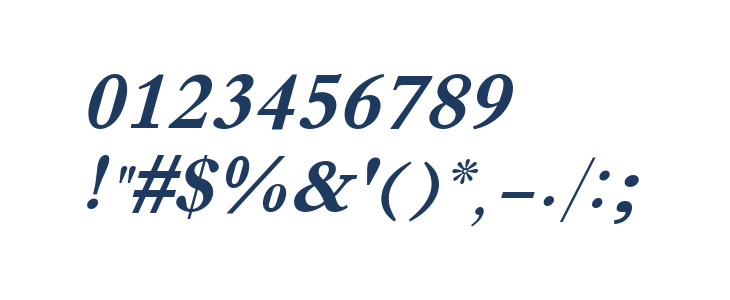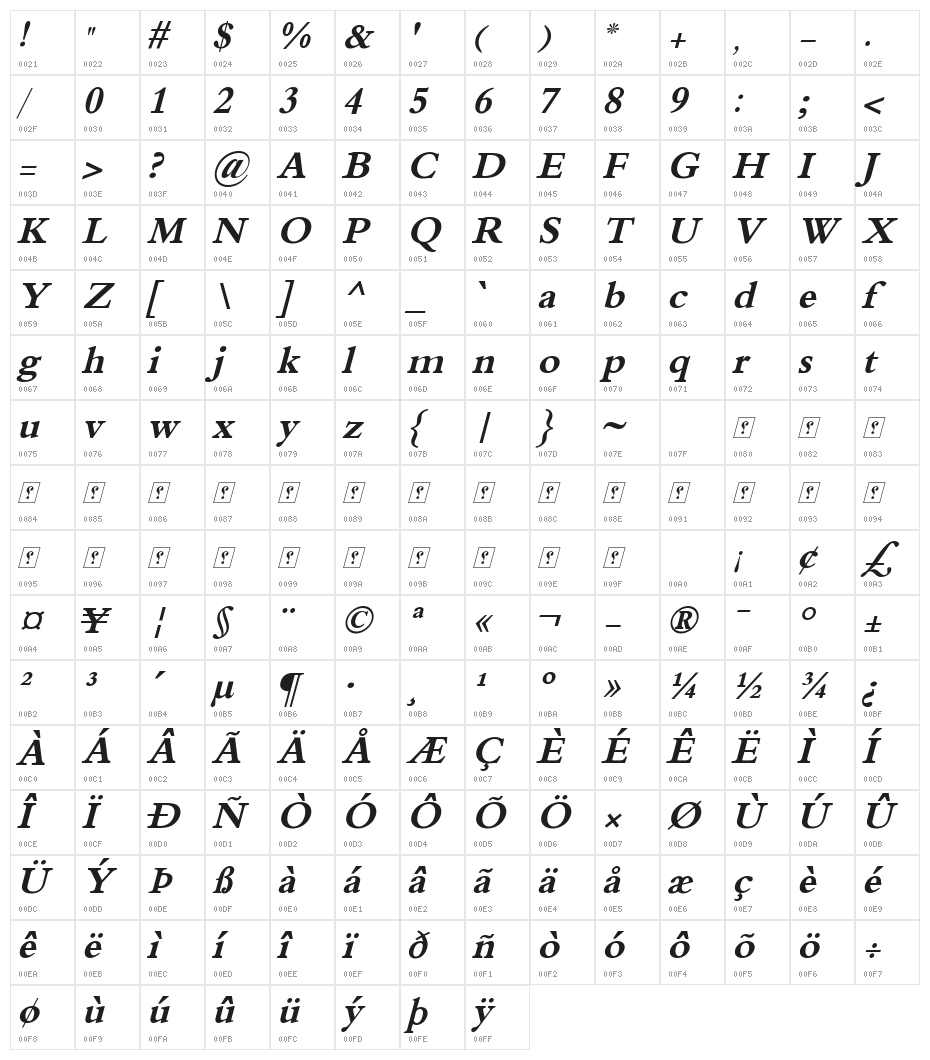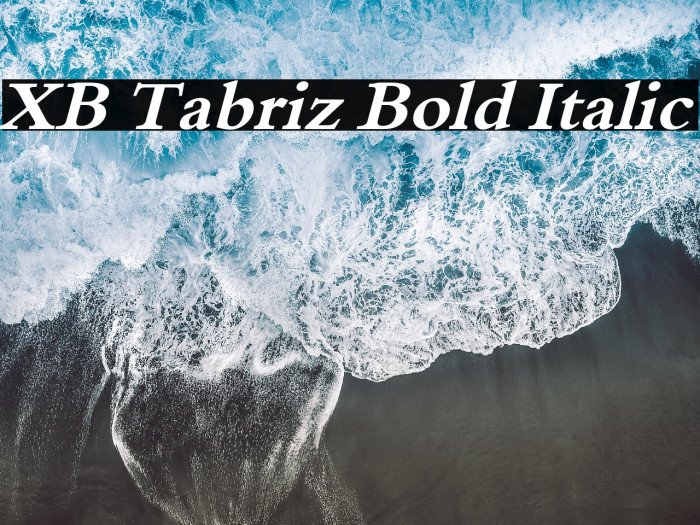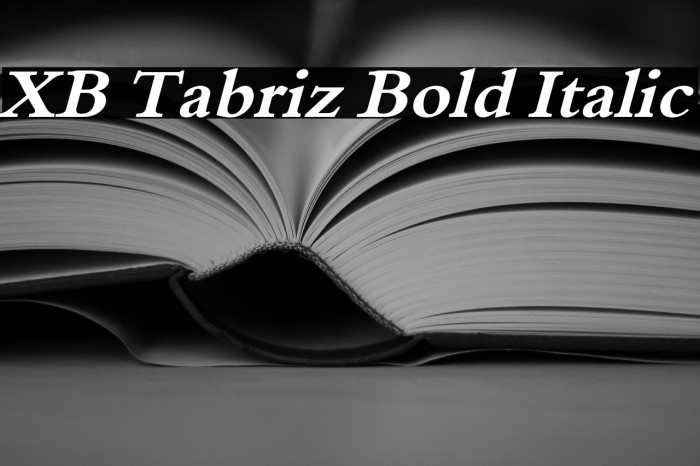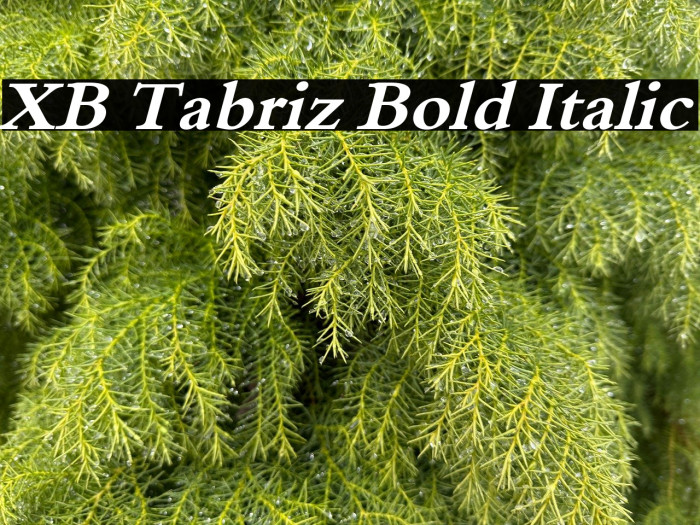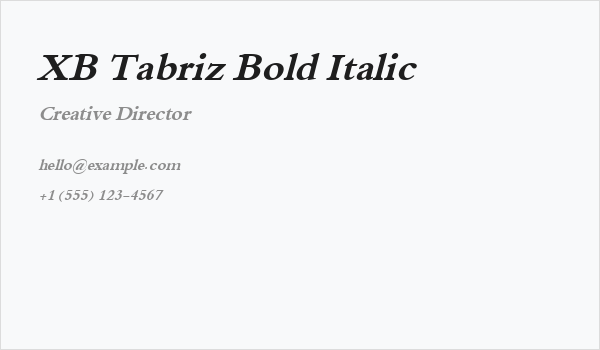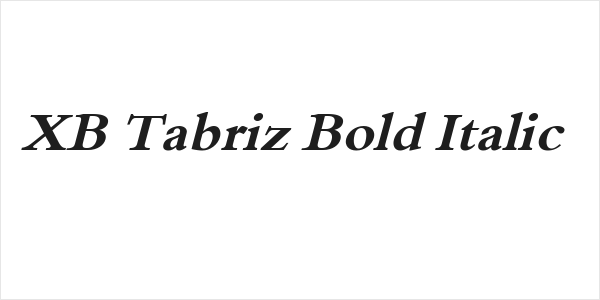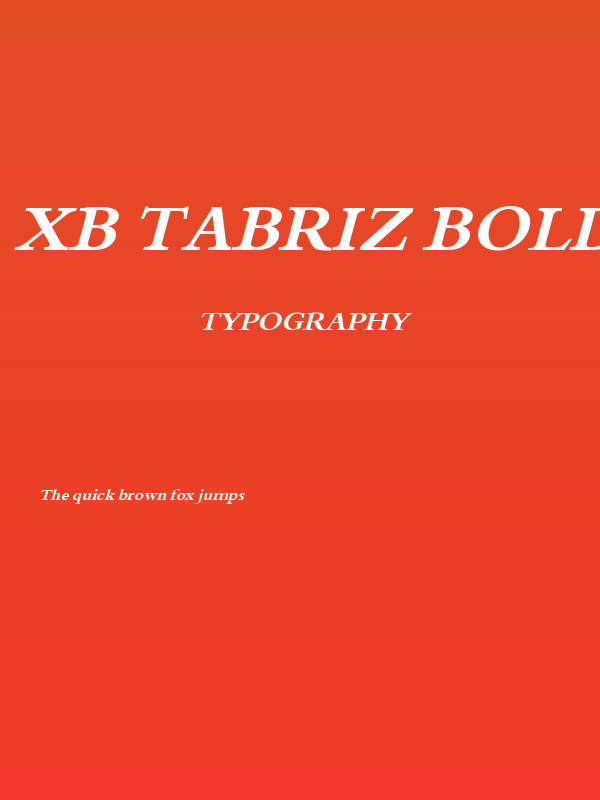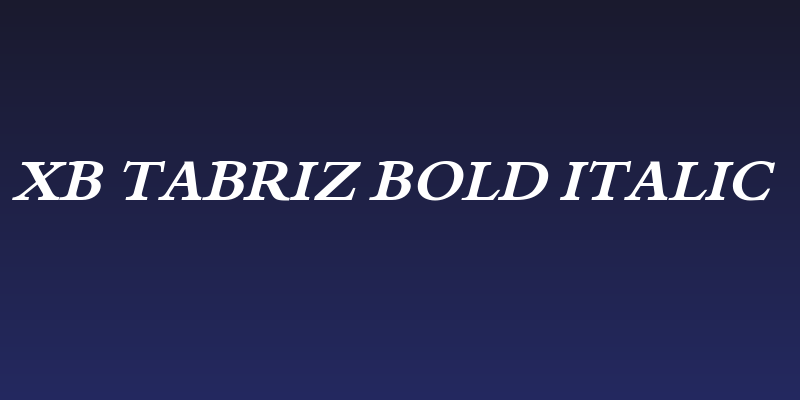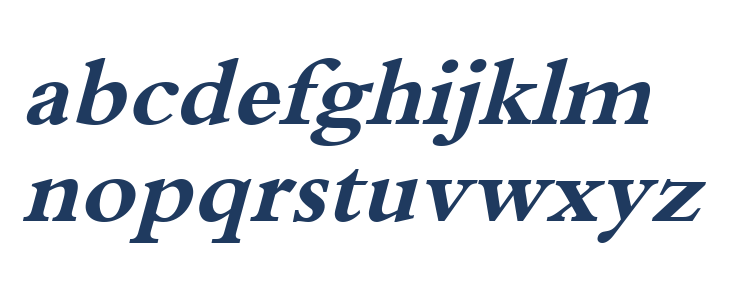
XB Tabriz Bold Italic Font
XB Tabriz Bold Italic Description
This font exhibits a bold and italicized style, characterized by its strong and dynamic presence. The letters are elegantly slanted, adding a sense of motion and sophistication. The strokes are thick and consistent, providing a robust appearance that commands attention. The serif detailing is pronounced, enhancing the classic feel while maintaining a modern edge. The numerals and special characters align seamlessly with the overall design, ensuring versatility across various applications. The font's structure is well-balanced, making it suitable for impactful headlines and titles.